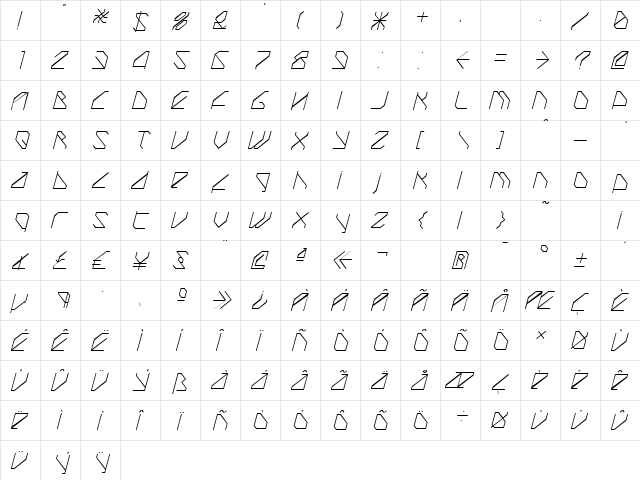
TechstepThin Oblique Regular Font Preview
Design Context for TechstepThin Oblique Typeface
TechstepThin Oblique has a distinctly futuristic character, with geometric precision and clean angles that feel at home in technology, gaming, and sci-fi contexts. The dynamic lean of this cut emphasises speed and emphasis in any layout. The delicate stroke weight brings airiness and refinement to layouts.